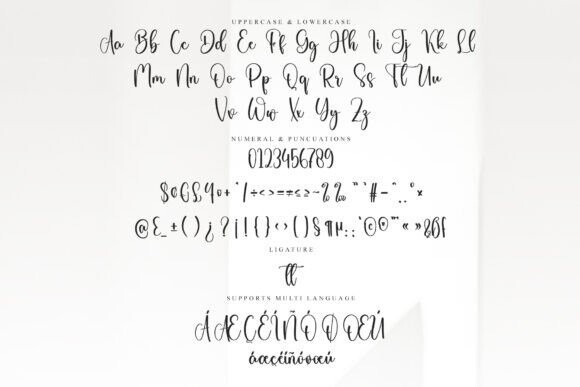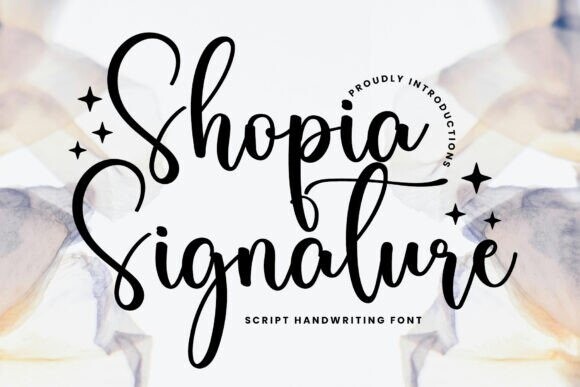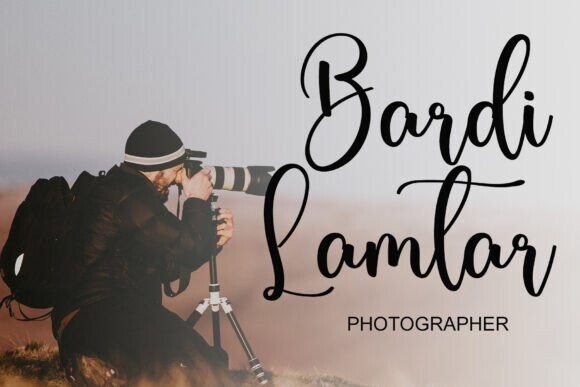
Shopia Signature Font
Designer: YanStudio
Shopia Signature Font is a magical handwritten font carefully created to give a touch of elegance to your designs. Whether you’re looking for fonts for Instagram or calligraphy scripts for DIY projects, this font will turn any creative idea into a true piece of art!